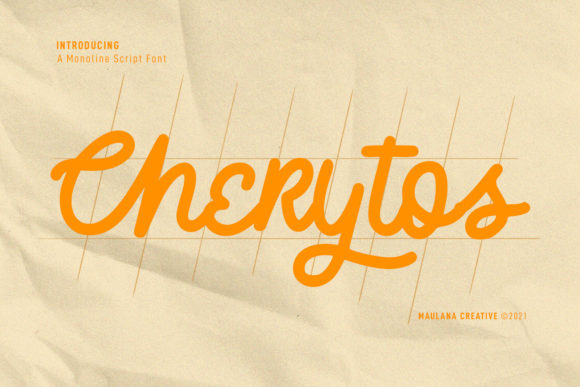
Why Cherytos Script Is the Perfect Vintage Touch
If you have ever tried to evoke a sense of nostalgia or old-world charm in your design work, you know how difficult it is to find a typeface that feels authentic without looking like a cheap Halloween costume. Many vintage-style fonts fall into the trap of being illegible or overly stylized, limiting their use to logos and nothing else. However, Cherytos Script manages to bridge the gap between aesthetic appeal and practical utility. It is a neat and vintage-styled script font that offers a distinct personality suitable for a wide array of creative projects.
The Visual DNA: More Than Just Nostalgia
At its core, Cherytos Script is a handwritten font that prioritizes legibility while maintaining a strong stylistic identity. When you look at the letterforms, you will notice a distinct mid-century influence. It does not have the aggressive, scratchy texture of a rough grunge font, nor does it have the sterile precision of a modern sans serif. Instead, it sits in a comfortable middle ground, offering smooth curves and consistent baseline stability.
The visual characteristics of this script font include moderate contrast in stroke weight and a slight slant that mimics natural handwriting. Unlike some display fonts that rely on excessive swashes to make a statement, Cherytos Script uses subtle details in its ligatures and terminals to create its vintage vibe. This makes it an excellent choice for projects where you need a creative font that commands attention without overwhelming the viewer. It feels hand-crafted, which is a quality that resonates deeply in an era of mass digital production.
Where Cherytos Script Truly Shines
The versatility of a typeface is often tested by how well it adapts to different mediums. Cherytos Script proves to be a valuable asset in numerous scenarios, particularly in brand identity and packaging design.
Branding and Logo Design
For entrepreneurs and small business owners, a logo is the face of the company. Using a premium font like Cherytos Script can immediately elevate a brand's perception. It works exceptionally well for businesses that want to project an image of craftsmanship, heritage, or personal touch. Think of artisan coffee roasters, boutique clothing lines, or high-end bakeries. The font's personality suggests that care and attention to detail went into the product, which is a powerful psychological trigger for consumers.
Editorial and Print Media
In editorial design, hierarchy is everything. While you would not use a script font for body text, Cherytos Script serves as a fantastic counterpoint to clean serif fonts or sans serif fonts. It can be used for pull quotes, subheadings, or chapter titles in a magazine or book layout. When paired with a simple body text typeface, it adds rhythm to the page, guiding the reader's eye and breaking up the monotony of long text blocks.
Digital and Social Media
The digital landscape is crowded. To stop a user from scrolling, your content needs to pop. Social media graphics often rely on bold imagery and text overlays. Cherytos Script is an ideal candidate for Instagram stories, Pinterest pins, and YouTube thumbnails. Its vintage style cuts through the noise of generic corporate fonts, offering a refreshing aesthetic that feels more human and relatable. It works beautifully for web design headers where you want to inject personality immediately upon the user's arrival.
Strategic Application: Readability and Hierarchy
As a designer or content creator, your primary goal is communication. A font is a tool for that communication, and understanding the strengths of Cherytos Script allows you to use it effectively.
Because it is a display font and a script font, readability decreases significantly at smaller sizes. This is a common trait among vintage-styled typefaces. Therefore, it is best reserved for headlines, logos, and short phrases. Do not attempt to write a paragraph of instructions in Cherytos Script; your audience will struggle to read it, and the message will be lost.
However, when used correctly, it enhances visual hierarchy. By contrasting the flowing, organic lines of Cherytos Script with a structured sans serif font, you create a dynamic tension that is visually pleasing. This contrast helps establish which information is most important (the headline) and which is supporting (the body copy).
Practical Guide: Pairing and Usage
Choosing the right partner for a font is just as important as choosing the font itself. Font pairing is an art, but there are some practical guidelines you can follow to ensure Cherytos Script looks its best.
Since Cherytos Script has a vintage personality, pairing it with an ultra-modern, geometric sans serif can sometimes feel disjointed unless done with extreme care. Instead, consider pairing it with a transitional serif font for a classic, academic look, or a humanist sans serif for something more approachable and friendly.
- For a Classic Look: Pair Cherytos Script with a sturdy serif font like Garamond or Baskerville. This works well for wedding invitations, book covers, or luxury branding.
Final Thoughts on the Asset
Every designer needs a library of reliable typefaces. While trends in modern typography come and go, the appeal of a well-crafted vintage script remains constant. Cherytos Script is not just a font; it is a design asset that brings warmth, history, and character to the table. Whether you are designing a logo for a new startup, laying out a brochure, or creating social media content, this font offers the flexibility and style needed to make your work stand out. It is a wonderful addition to any creative professional's arsenal, ready to enhance whatever creation you have in mind.